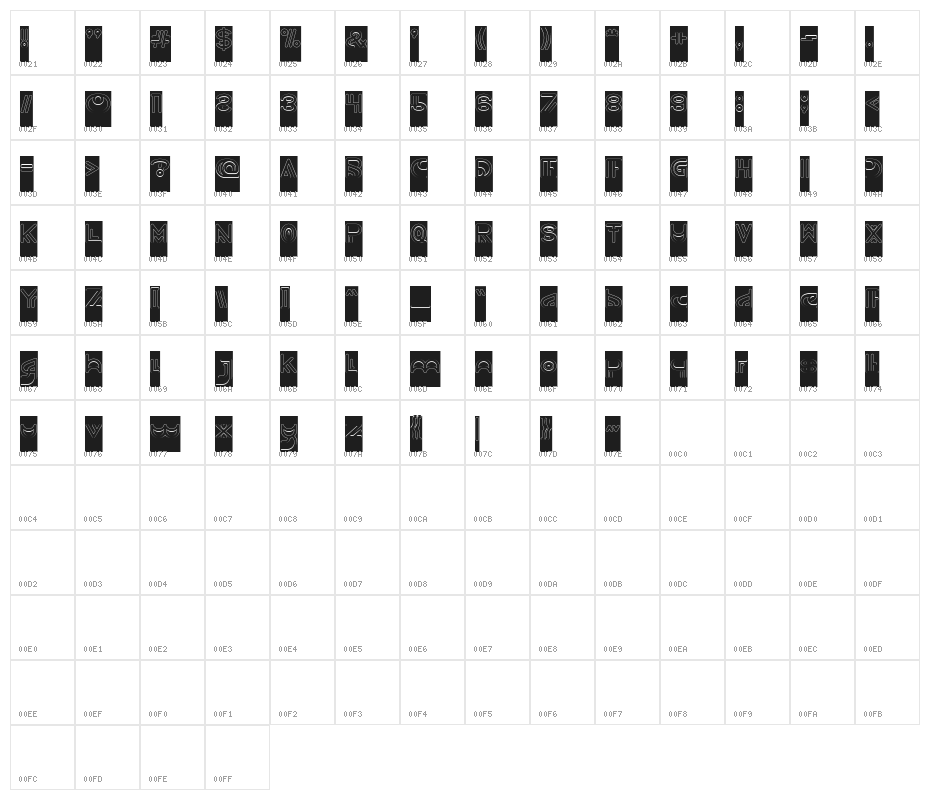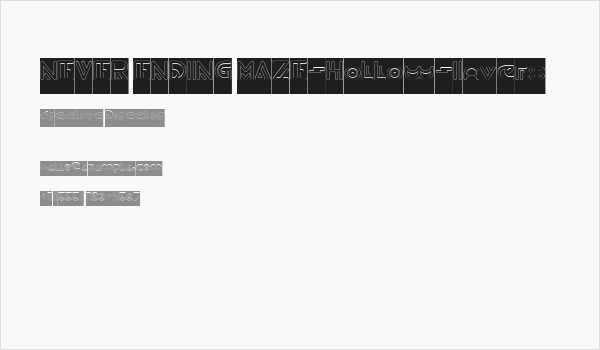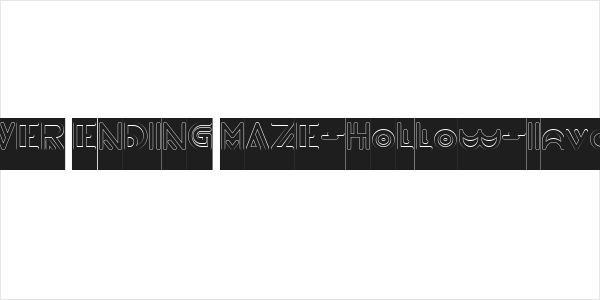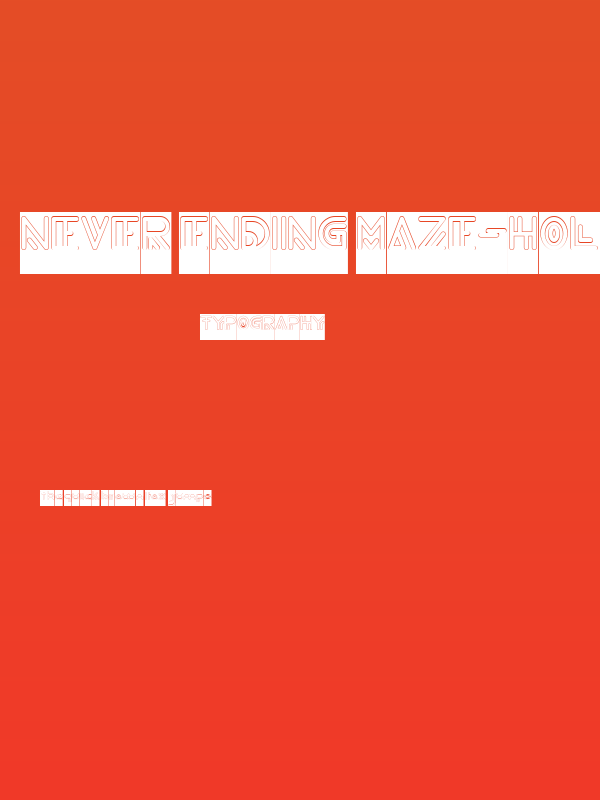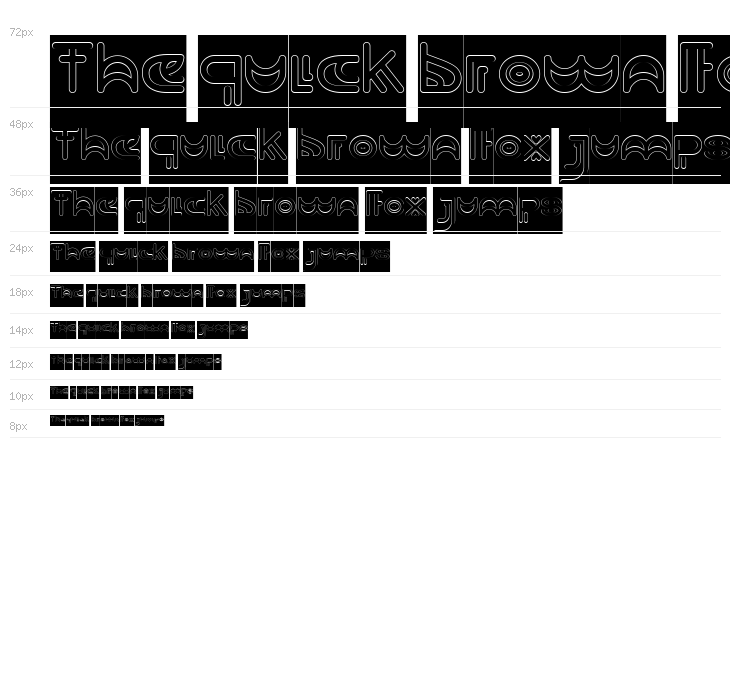
NEVER ENDING MAZE-Hollow-Invers Font
NEVER ENDING MAZE-Hollow-Invers Description
This font features a unique hollow design with an inverse style, creating a maze-like appearance. The characters are outlined with a consistent stroke width, giving them a modern and futuristic look. The uppercase and lowercase letters maintain a geometric structure, with rounded edges and a playful yet sophisticated vibe. Numbers and special characters follow the same design principles, ensuring uniformity across all elements. This font's distinct style makes it stand out, offering a visually intriguing option for creative projects.
| Proposed Projects | Ideal for branding, posters, album covers, and digital art projects where a bold, futuristic aesthetic is desired. |